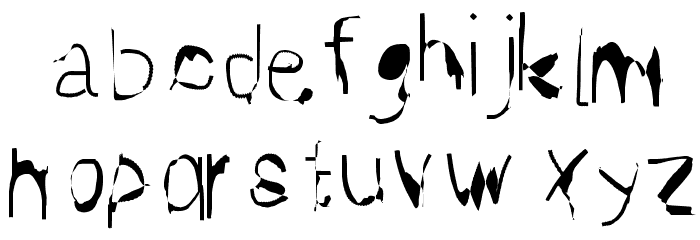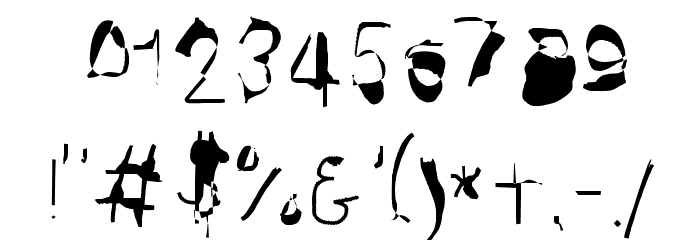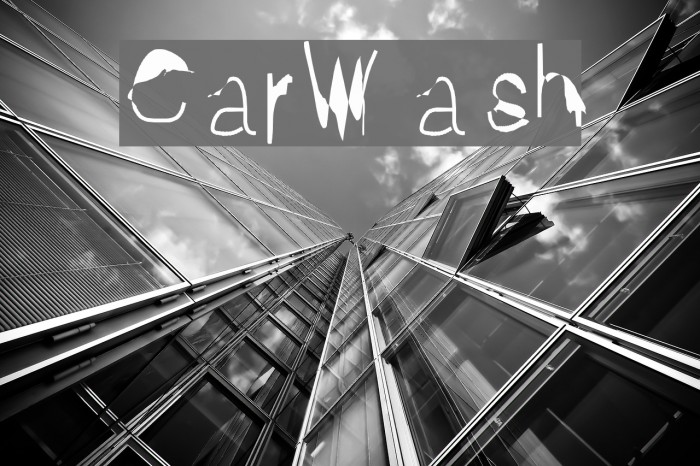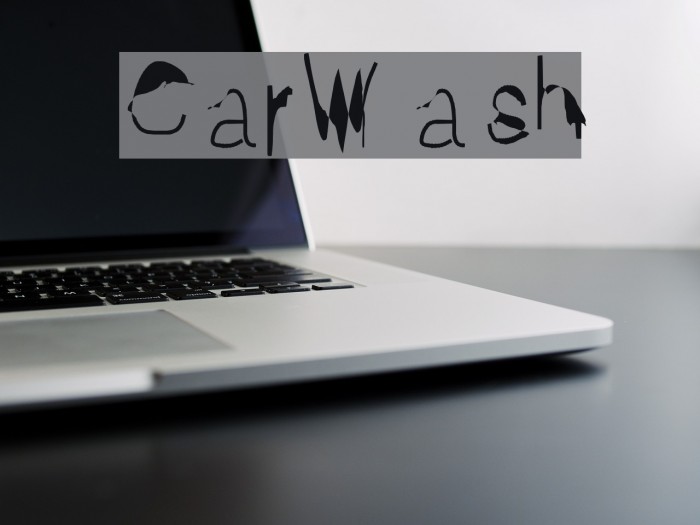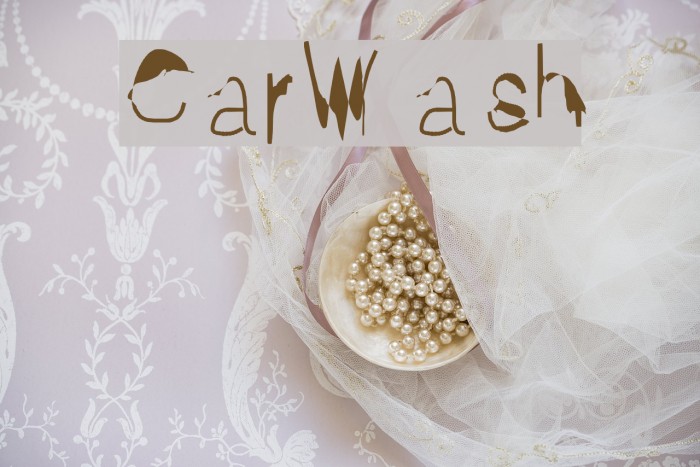
CarWash Font
This font features a highly distressed and grungy appearance, with irregular edges and a rough texture that gives it a unique, weathered look. Each character appears as if it has been eroded or splattered, creating a chaotic yet artistic style. The uppercase and lowercase letters maintain a consistent theme, with varying degrees of distress that add to the overall aesthetic. Numbers and special characters follow the same design, ensuring uniformity across all glyphs. This font's distinctive style makes it stand out, perfect for projects that require a bold, unconventional look.
A distressed, grungy font with irregular edges and a rough texture.
- Proposed Projects: Ideal for album covers, streetwear branding, graffiti art, and edgy poster designs.
- Overall Style: Grunge, Artistic
- Use Case: Logos, Posters, Album Covers